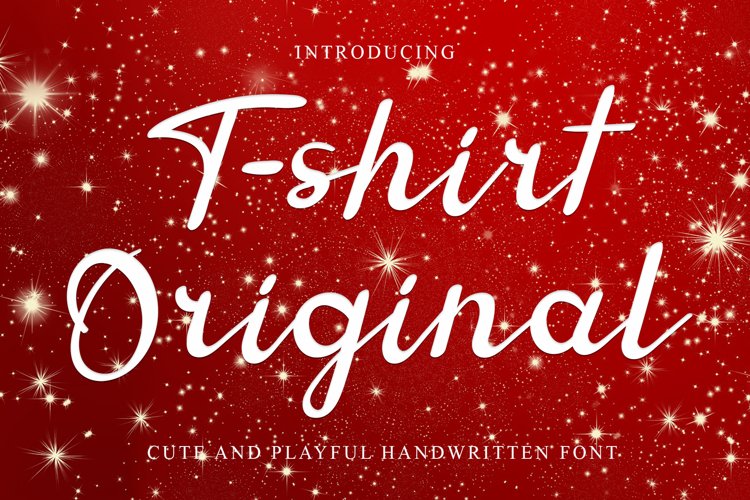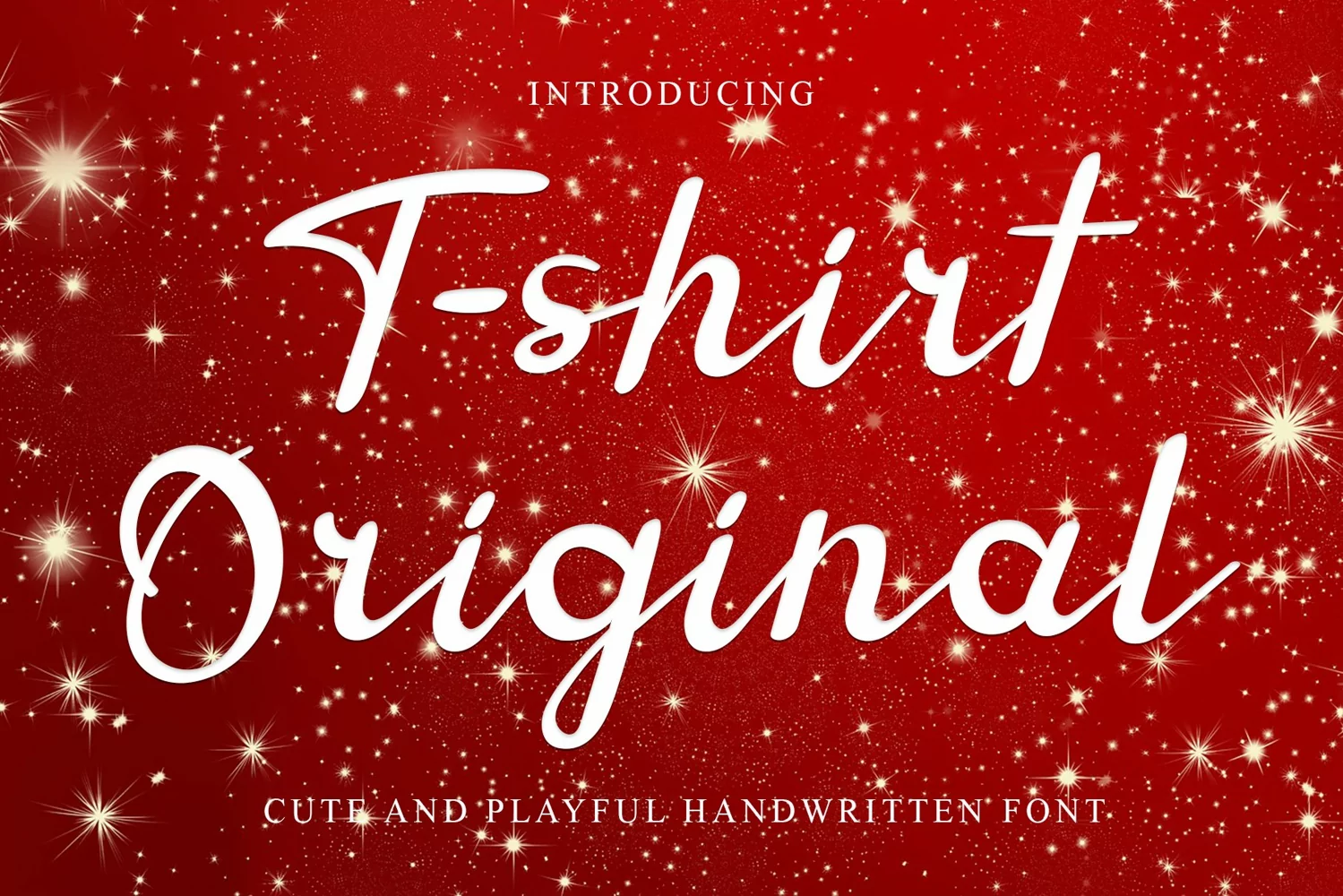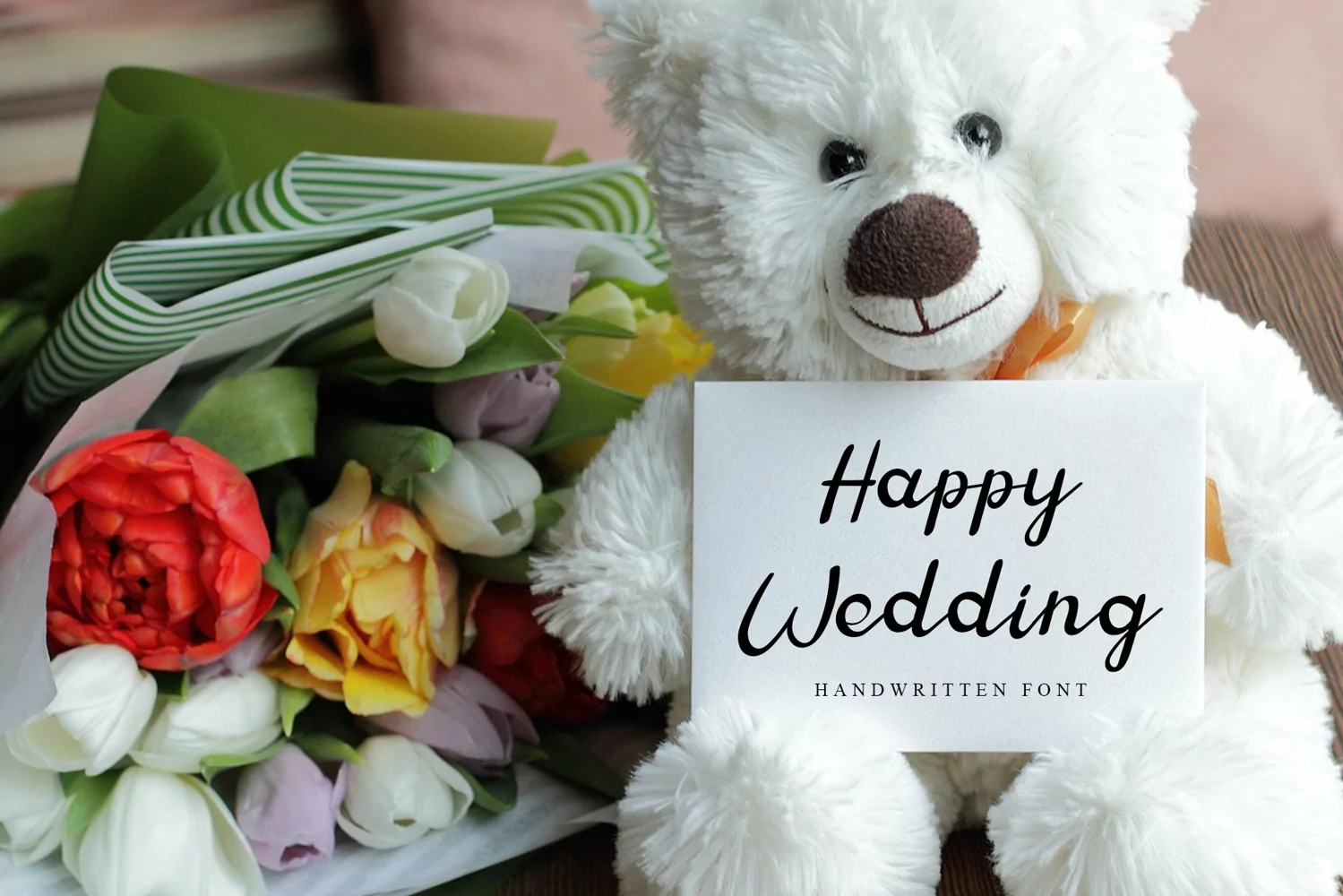
T-shirt Original
Introducing, this is our newest product, we call this product T-shirt Original,
It looks amazing with sweet touches and beautiful curves in each letter. T-shirt Original fonts are perfect for: wedding invitations, fashion magazines, logos, signatures, photography, watermarks, wall displays, social media,